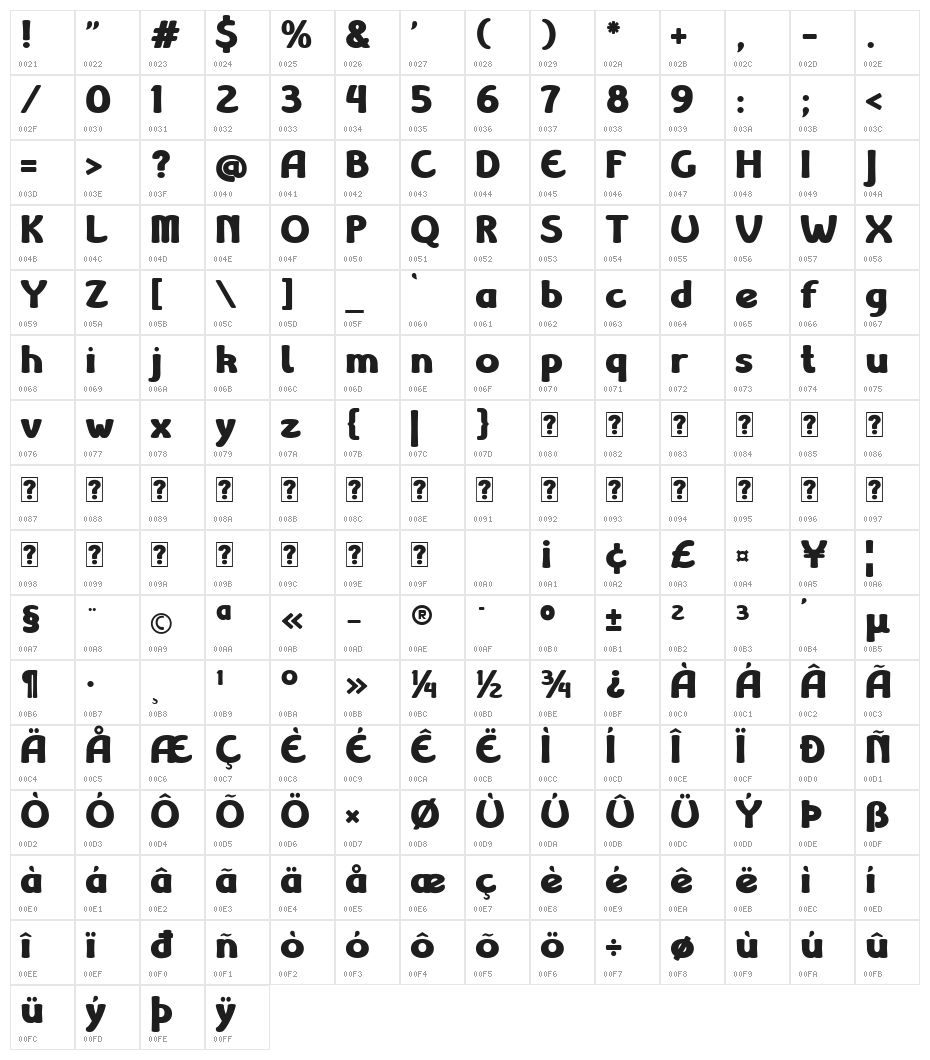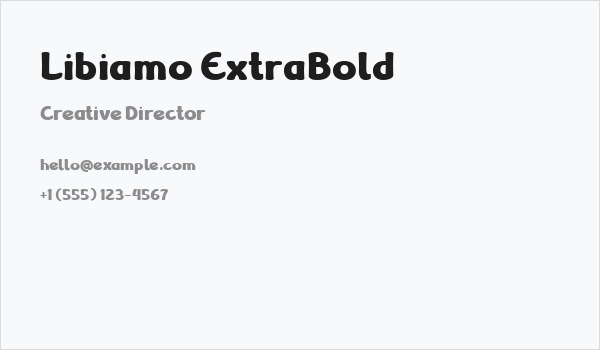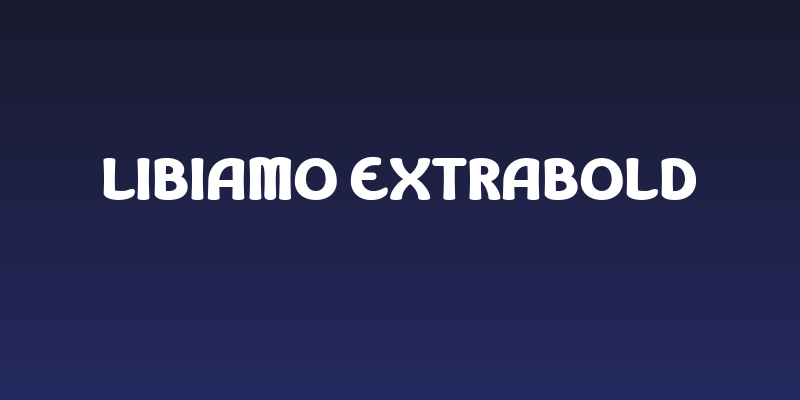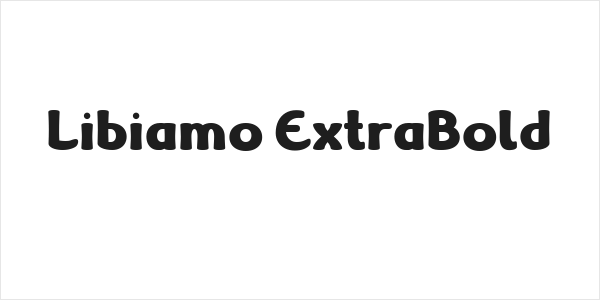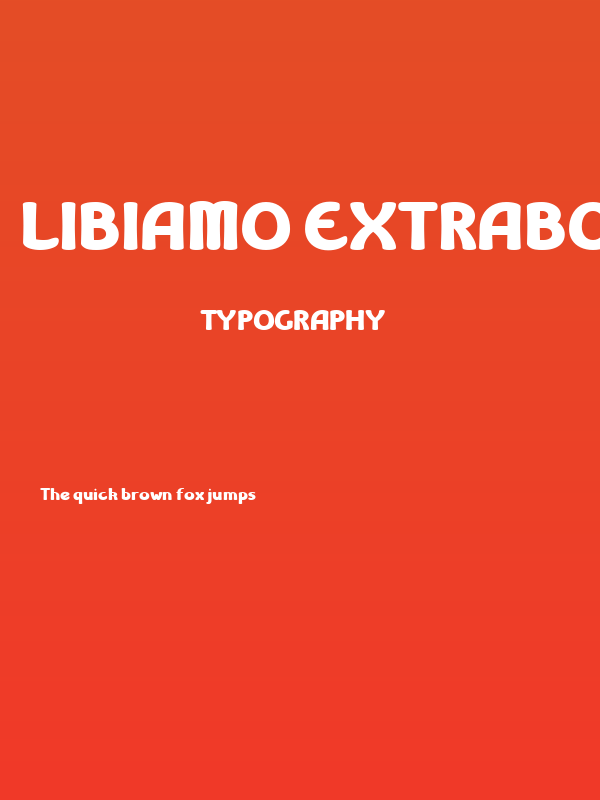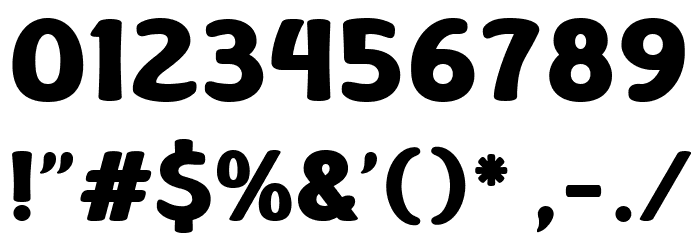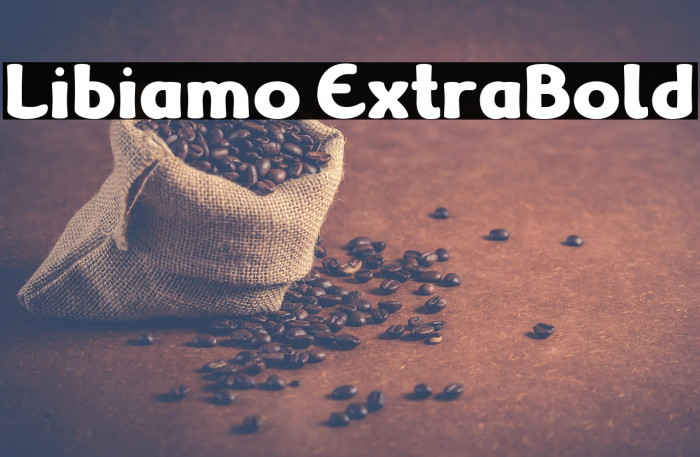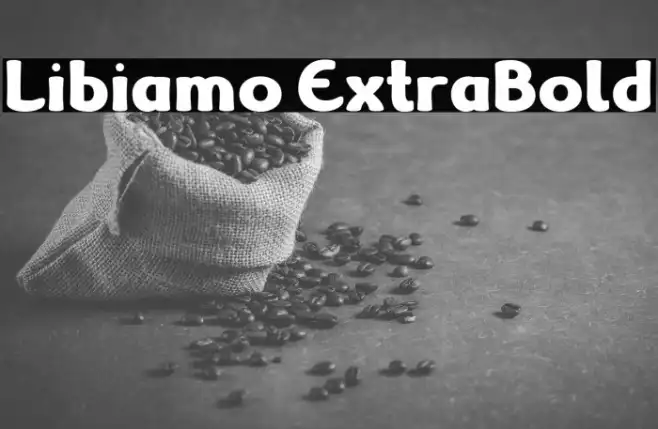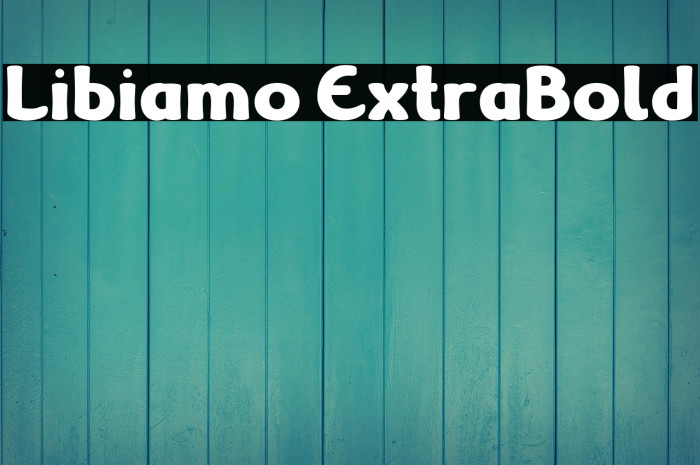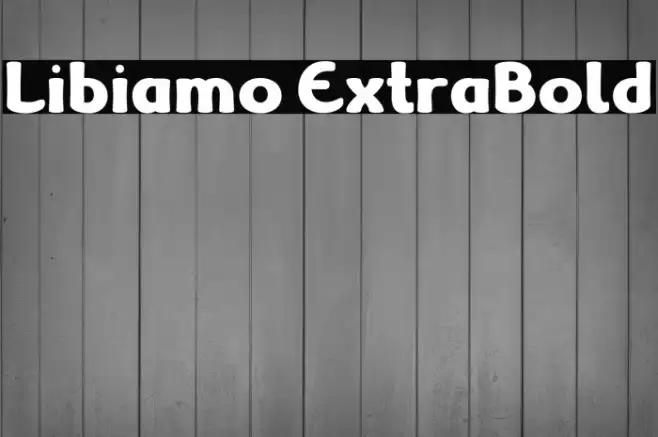
Libiamo ExtraBold Font
Libiamo ExtraBold Description
This font features a bold and playful style with rounded edges and a strong presence. The characters are thick and substantial, making them stand out prominently. The overall design is smooth and friendly, with a whimsical touch that adds a sense of fun and creativity. The uppercase and lowercase letters maintain a consistent weight, contributing to a cohesive look. The numerals and special characters are equally bold, ensuring uniformity across all elements. This font's design is ideal for projects that require a lively and engaging visual impact.